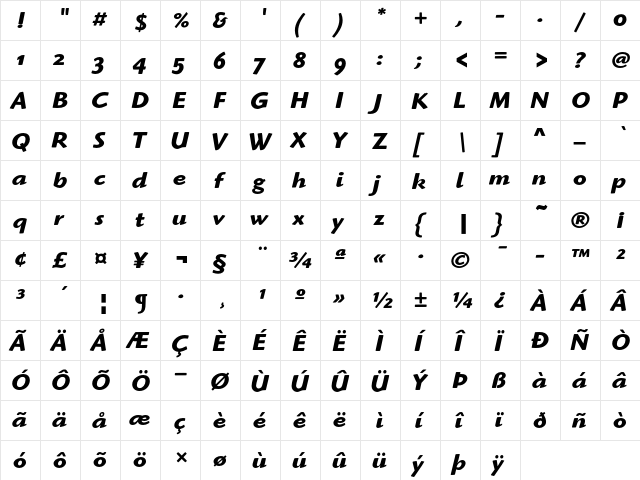
Highlander ITC Bold Italic OS
Design Context for Highlander ITC Typeface
Highlander ITC offers clean, dependable letterforms without strong stylistic allegiance, making it a practical choice for designers who need flexibility. The dynamic lean of this cut emphasises speed and emphasis in any layout. Its bold stroke weight gives it real presence on the page.
Pro Tip: Use Highlander ITC for emphasis, pull quotes, and subheadings where its slanted energy can add rhythm to the layout.